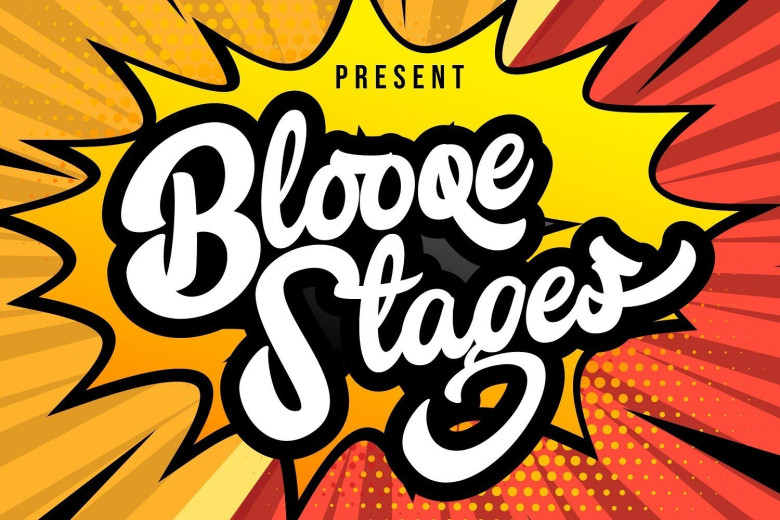
Blooqe Stages Bold Script Font
Blooqe Stages Font is a bold calligraphy script typeface with noble and vintage looks. Created in response to current graphic design trends. Inspired by classic labels, vintage packaging, and old sign paintings.
This Blooqe Stages will add a touch of worldly knowledge to your artwork, Classic nuance is perfect for those of you who need fonts for especially the types of logos, clothing, signage, branding, packaging, advertising, and more.